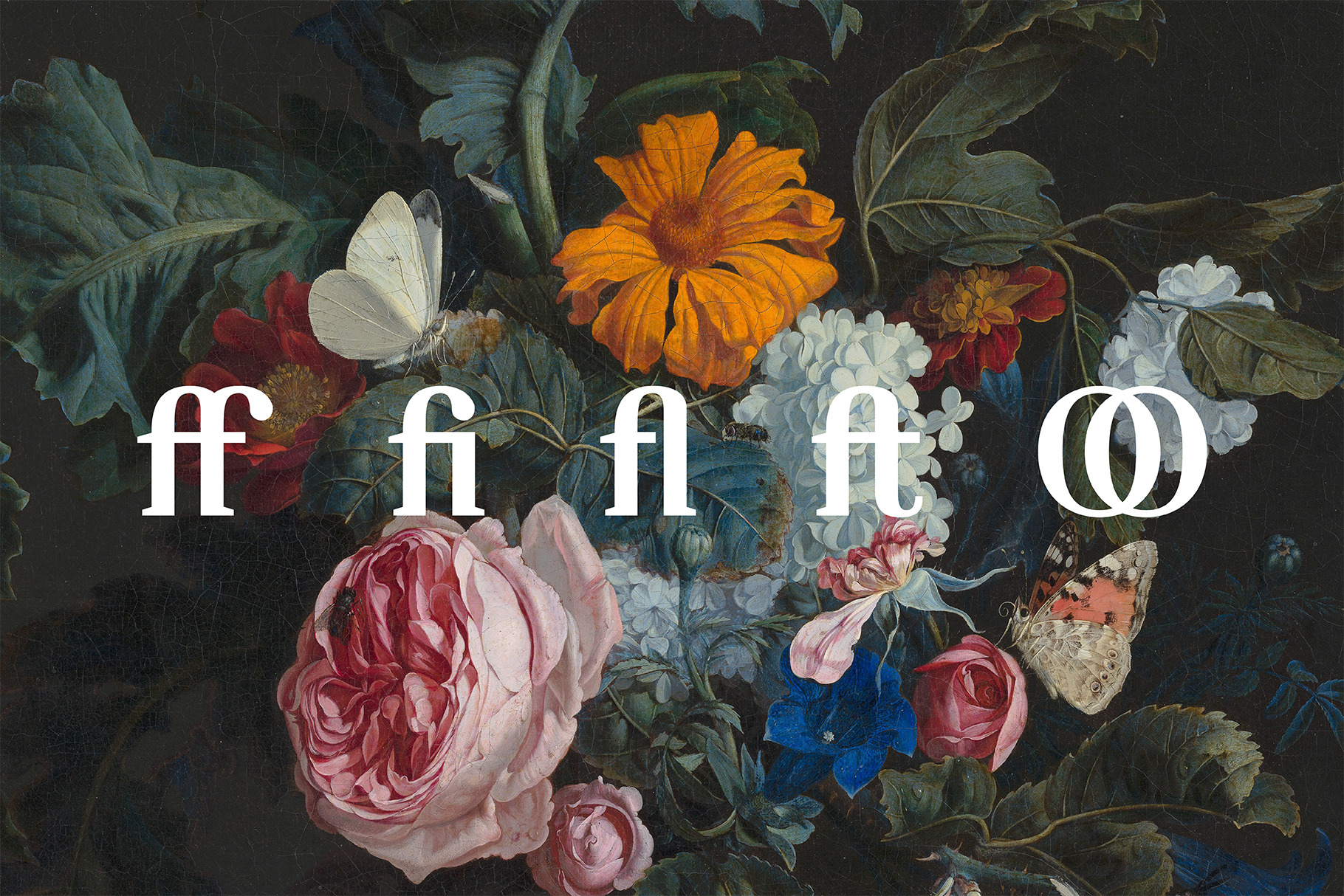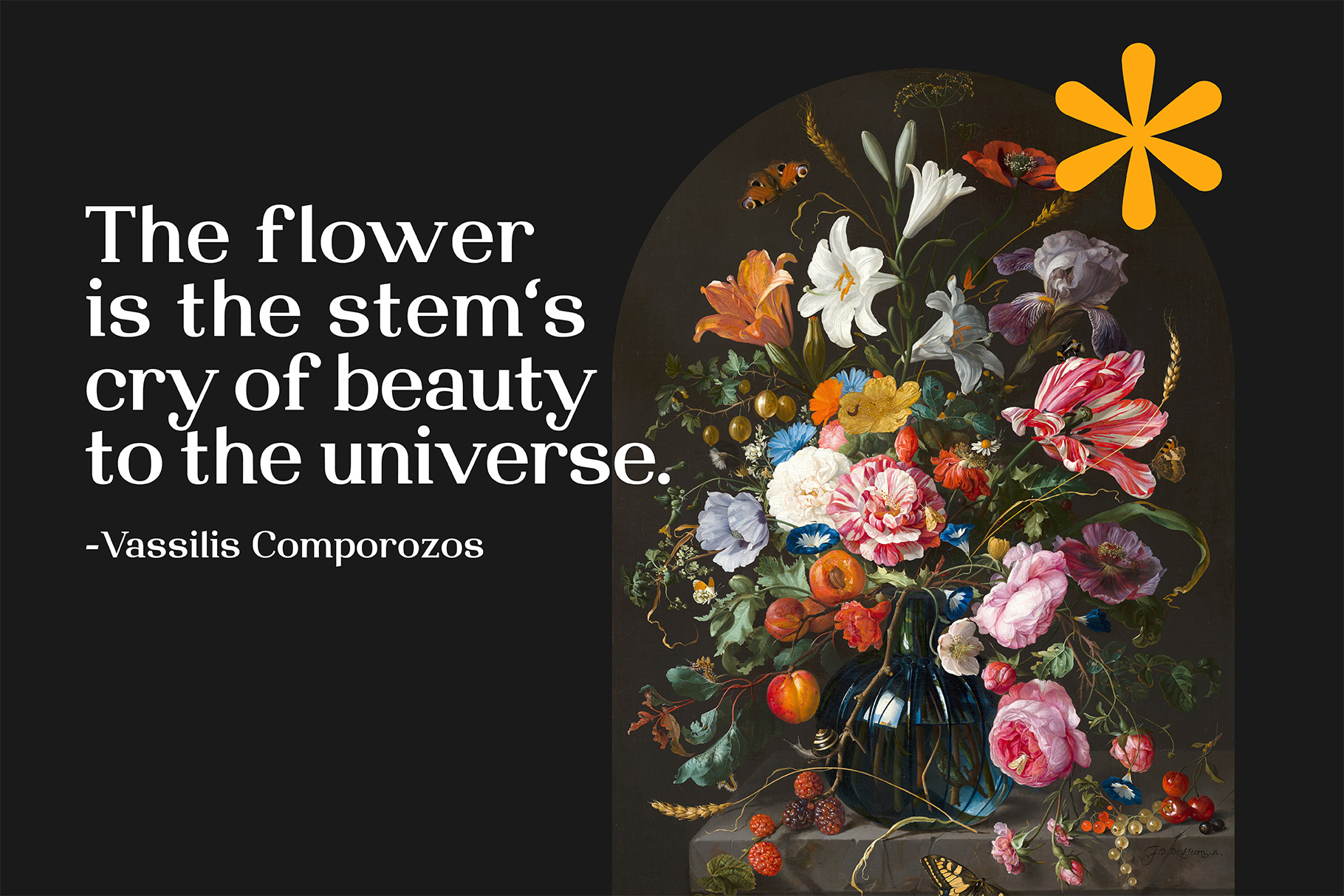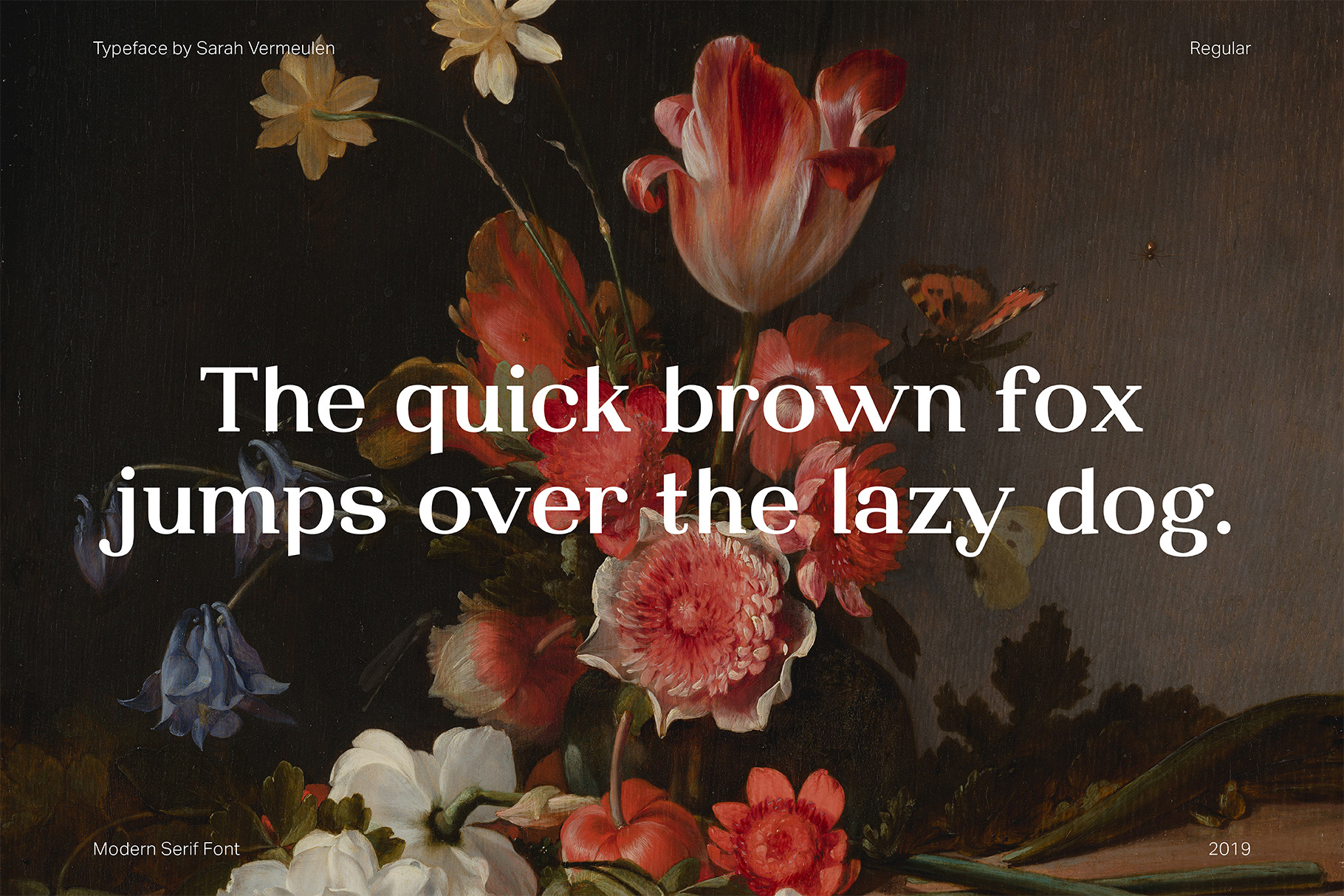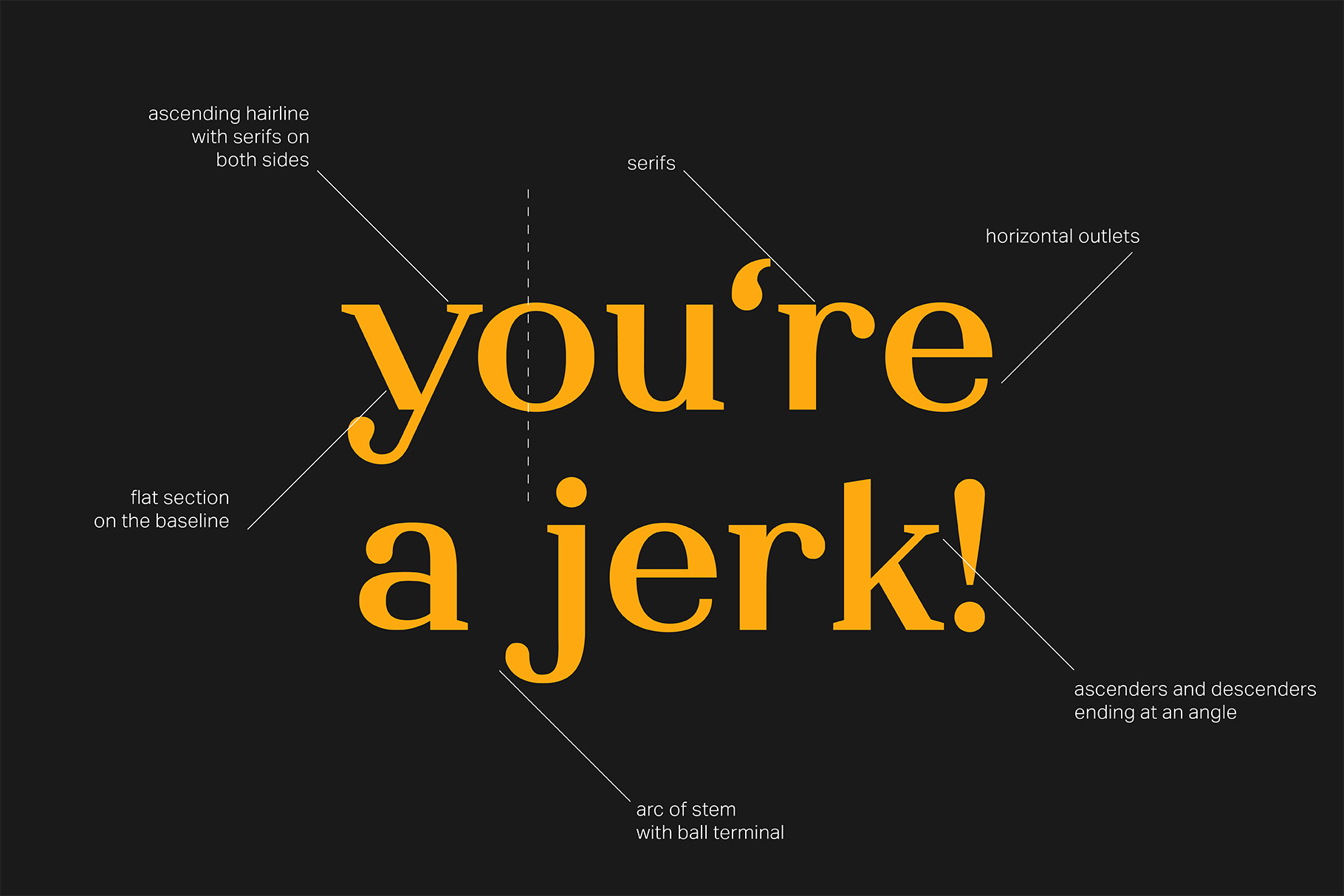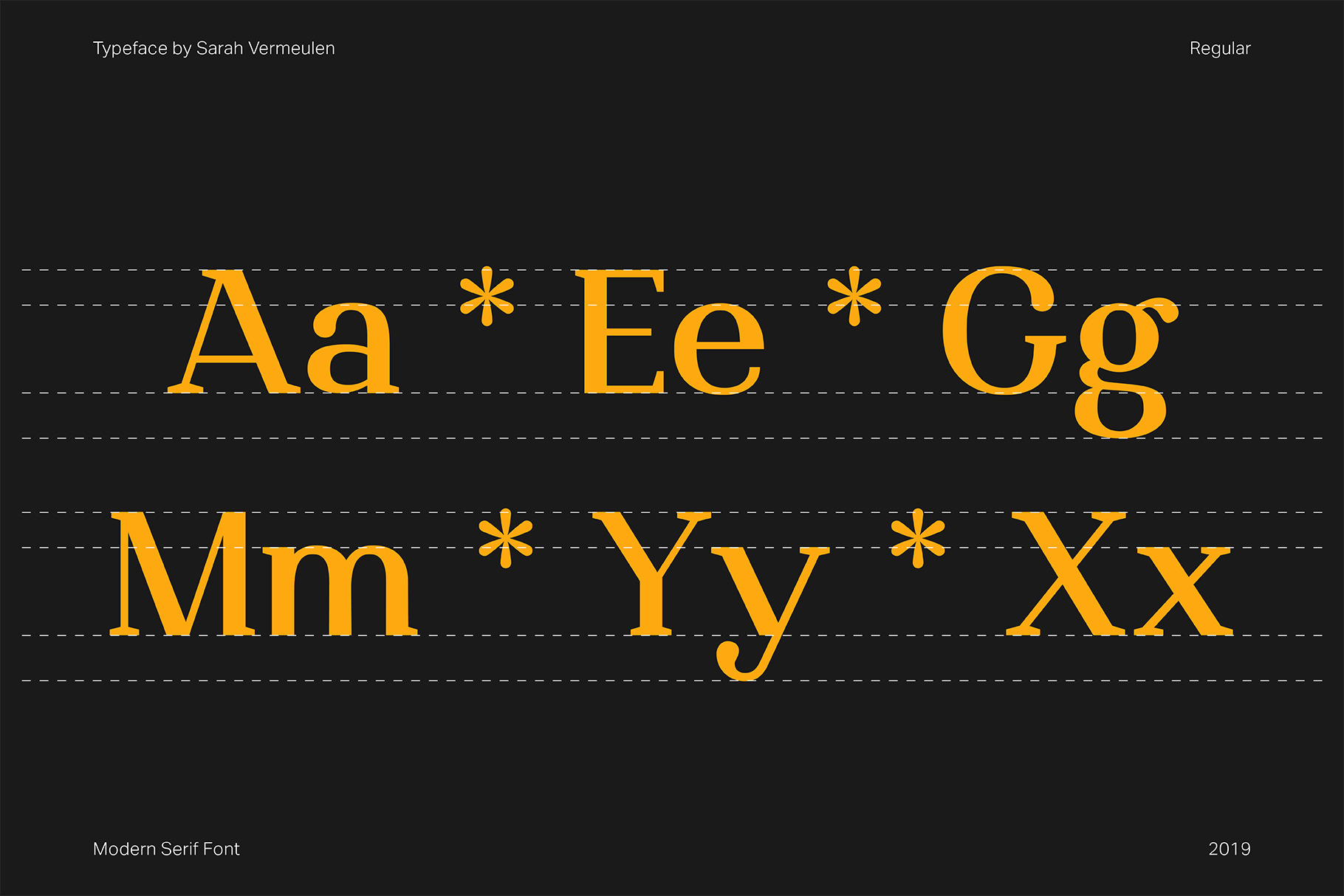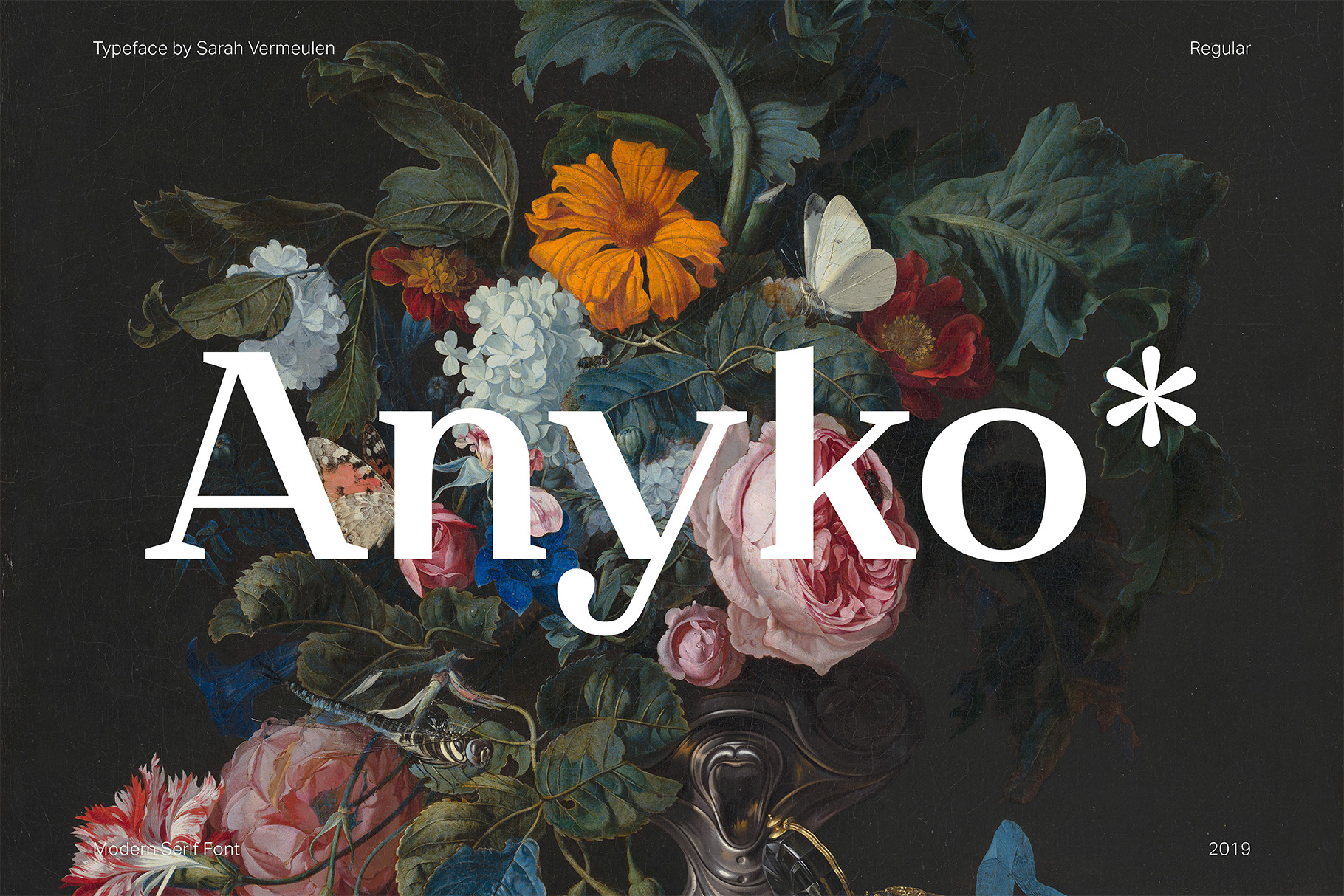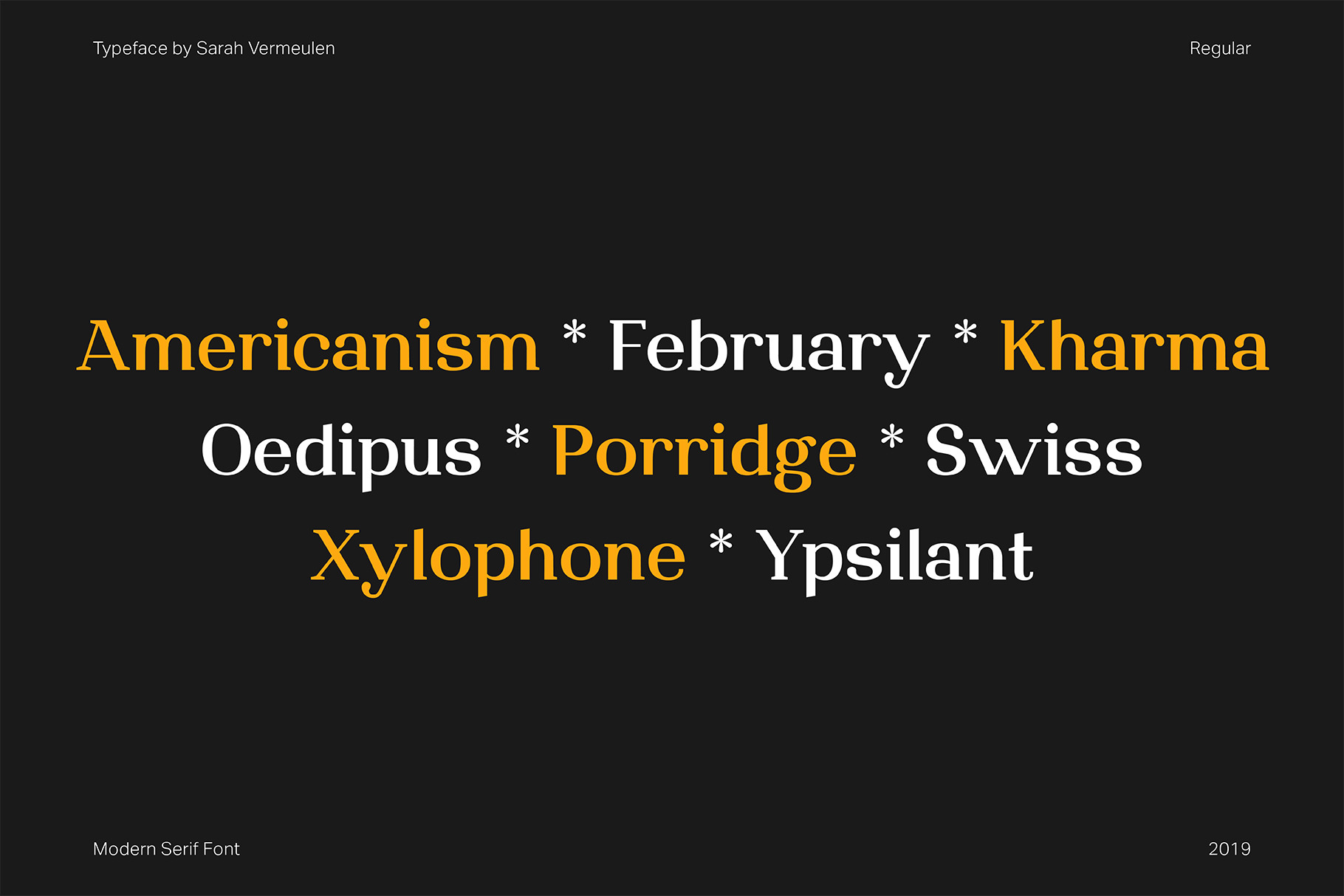
Get the modern and stylish *ANYKO* typeface. *ANYKO* is a fresh and well-designed serif font. It's modern, bold and classy! You'll receive an OTF, TTF and WOFF document and a text-document with a link to a very helpful Youtube-tutorial on how to install a new font, so you can add it to your font library. *ANYKO* will display in all your programs *(Word, Powerpoint, Illustrator, Photoshop, ...)* - ANYKO FEATURES - Minuscules and majuscles - Numbers - 5 ligatures - 28 special characters HOW IT WORKS 1. Buy the font 2. You’ll immediately receive the font including a Link to a Tutorial and your License 3. Install your font 4. Start creating! IMPORTANT It is forbidden to resell or redistribute the designs you purchased – they are intellectual property of *©Vermeulen Design Studio*. Keep in mind that this is a digital file that cannot be returned or exchanged. Don’t hesitate to contact me here or vie mail (**) if you’re having questions of any type. - Made with love at the *Sarah Vermeulen Design Studio*! Thank you for visiting my shop | ANYKO | Serif Font | Vermeulen Design Studio